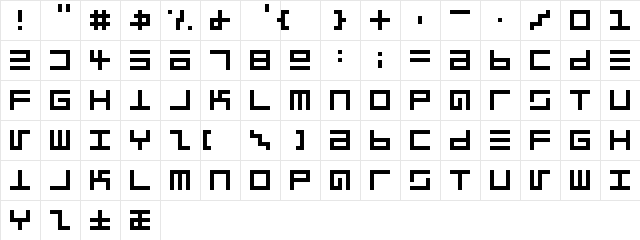
EppsEvans Regular
Design Context for EppsEvans Typeface
EppsEvans is a composed and adaptable typeface that performs quietly and consistently across a wide range of design contexts.